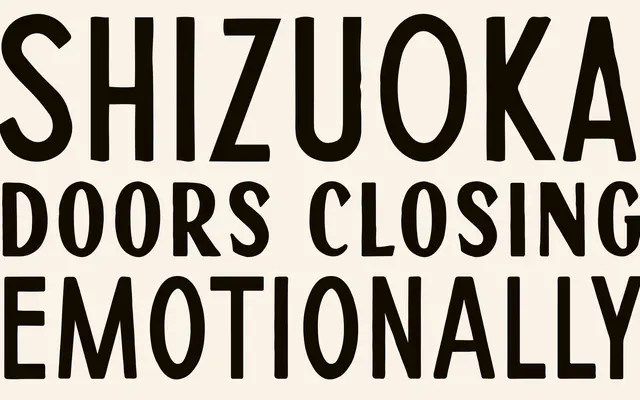
Big Typeface Collection
Big Typeface Collection specimen from Taylor Penton
A bundle of 53 hand-drawn display typefaces from Taylor Penton, including nine exclusive fonts unavailable elsewhere in the store.
The collection brings together 53 hand-drawn typefaces under a single commercial licence, with nine fonts, including Woodrow, Nina and Cardano, exclusive to this bundle. Language support ranges from standard English to extensive Western European coverage depending on the individual typeface. Supplied as OTF desktop files and WOFF/WOFF2 webfonts, with a licence covering logos, packaging, websites, client work, apps, broadcast and commercial products for individuals and teams up to 50 employees.
The collection is described as 53 hand-drawn typefaces spanning a range of display styles; the hand-drawn character and decorative intent place it firmly in the display category.